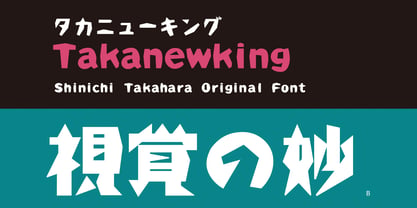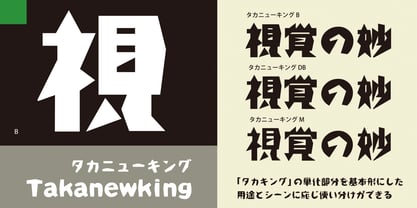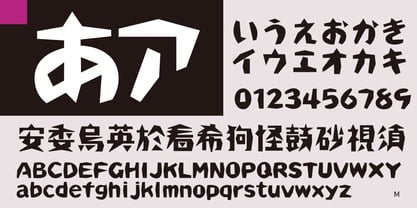
Takanewking
by Taka Design Production
This is a new version of “Takaking”. It is a basic shape design with a monotypic part made graphic by some Kanji characters. It can be used separately from “Takaking”.